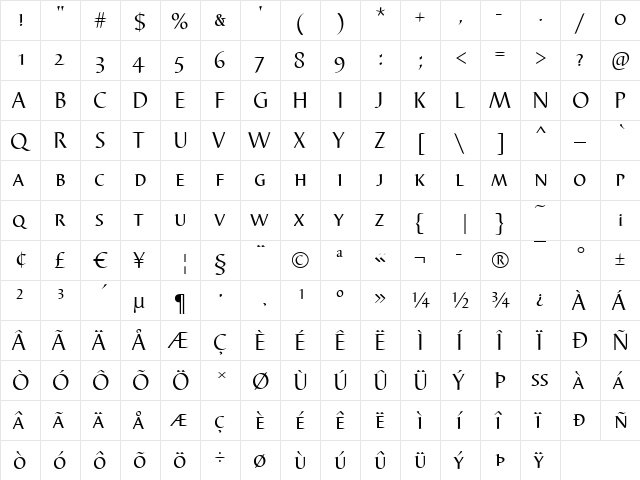
Barbedor-Caps Regular
Design Context for Barbedor-Caps Typeface
Barbedor-Caps takes a measured approach to typography — its balanced proportions and neutral character make it a reliable workhorse for both digital and print work.